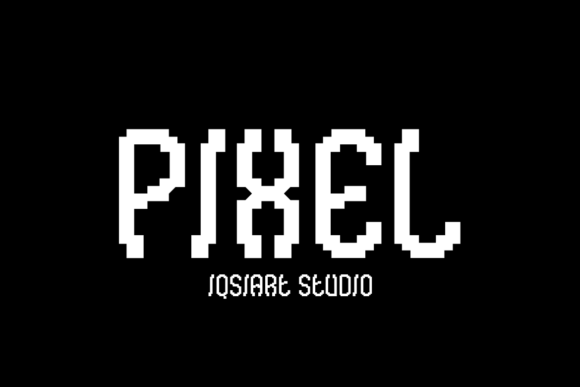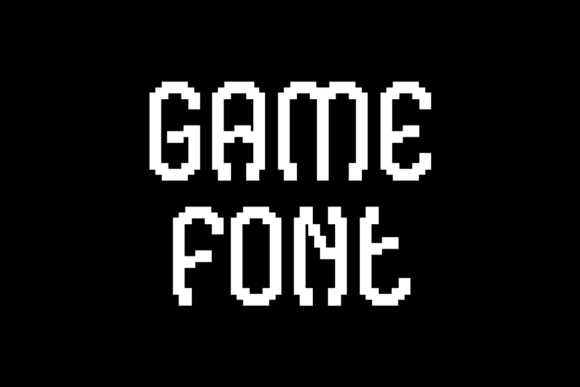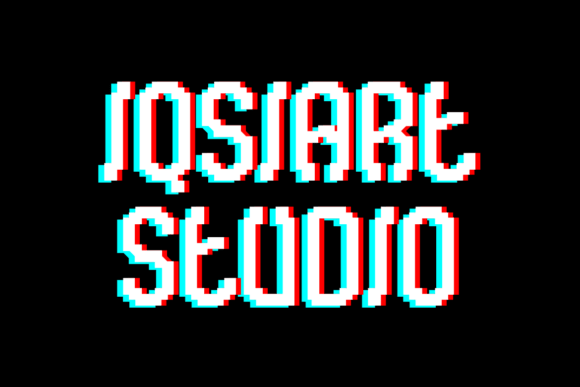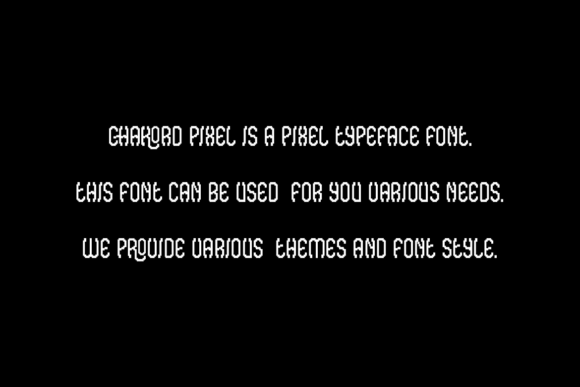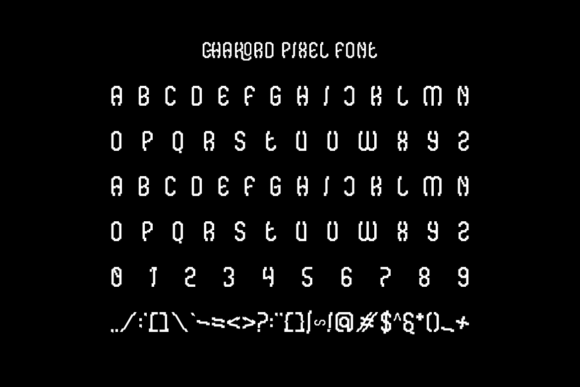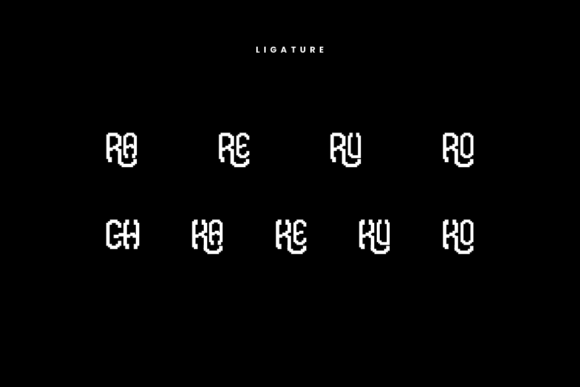
Unlocking the Retro Gaming Aesthetic with Chakord Pixel Font
Remember the rush of excitement as you booted up your old arcade console or pixelated video game on your 8-bit console? The distinctive blocky shapes and pixelated graphics instantly transport you back to those nostalgic moments. As designers, we’re often on the lookout for ways to tap into that retro gaming charm while infusing it with modern flair.
That’s where the Chakord Pixel Font comes in – a game-changing typeface that masterfully blends the best of both worlds. With its creative angular cuts and stylized detailing, this font is more than just a retro-inspired typeface; it’s a powerful tool for designers who want to add a touch of vintage cool to their projects. From posters and digital art to video game branding and tech-themed projects, the Chakord Pixel Font is the perfect choice for designers who crave a unique and eye-catching aesthetic.
Whether you’re a seasoned designer or a creative enthusiast, the Chakord Pixel Font offers effortless access to a wide range of glyphs, swashes, and alternate characters – making it a valuable addition to your design toolkit.
Chakord Pixel Font Key Features
- Pixel-Perfect Design: This font features a unique pixel art design, making it ideal for retro-style gaming, pixel art, and other applications that require a distinct aesthetic.
- Character Set: The font includes a comprehensive set of characters, including uppercase and lowercase letters, numbers, and punctuation marks, as well as a range of special characters and symbols.
Chakord Pixel Font Review
Overall, I think Chakord Pixel Font is a decent addition to the world of pixel fonts. While it has its quirks, it’s a solid choice for certain projects.
- Unique aesthetic: Chakord Pixel Font has a distinct, retro feel that’s perfect for projects that need a pixelated vibe.
- Good character set: The font includes a wide range of characters, including punctuation and numbers, making it a versatile choice.
- Limited language support: Chakord Pixel Font may not be the best choice for projects that require support for languages with complex scripts.
- Not suitable for large text: Due to its pixelated nature, Chakord Pixel Font may not be the best choice for large blocks of text or headings.
- No bold or italic styles: The font is only available in regular style, which may limit its use in certain situations.
While Chakord Pixel Font may not be the most versatile font out there, it’s a great choice for projects that need a pixelated aesthetic. With its unique look and free price, it’s definitely worth considering for certain projects.
For the most effective use of Chakord Pixel Font, consider the following tips:
– Use it for titles, headings, or emphasis to create visual interest.
– Pair it with other fonts to create a unique and eye-catching design.
– Experiment with different font sizes and styles to achieve the desired effect.
Chakord Pixel Font is commonly used for:
– Retro-style designs and graphics.
– Video game-inspired art and graphics.
– Pixel art and digital art projects.
– Creating a unique and distinctive visual identity for a brand or project.